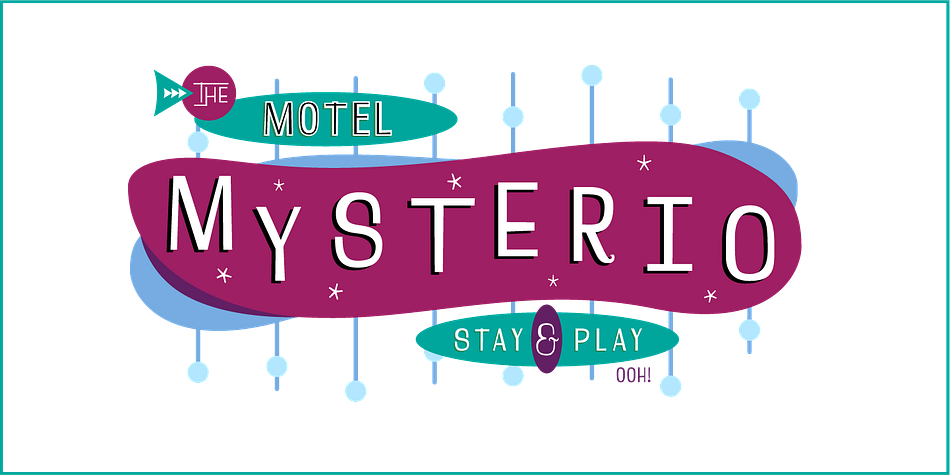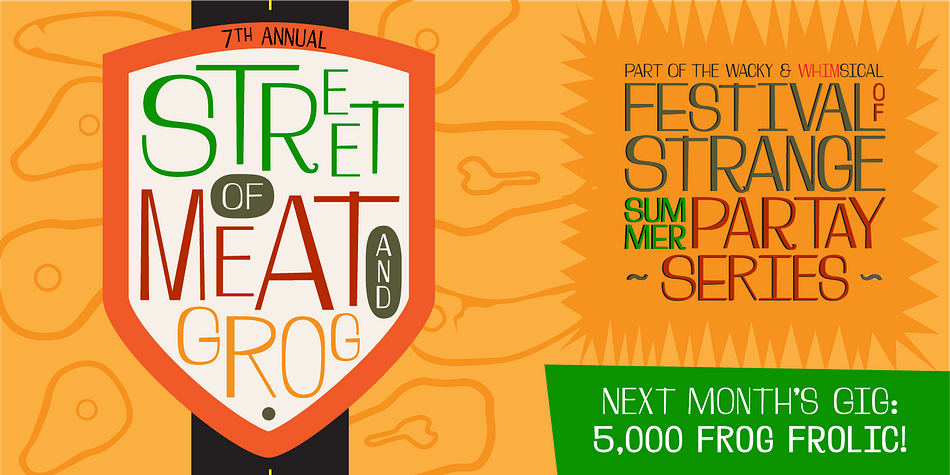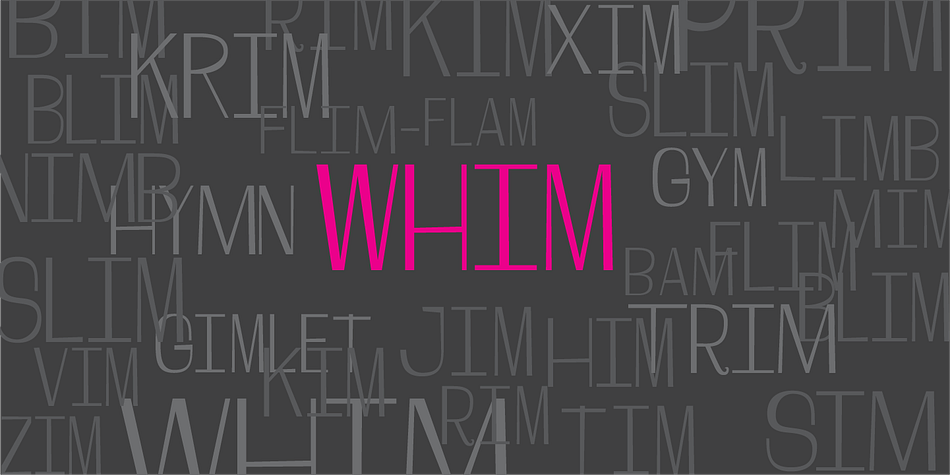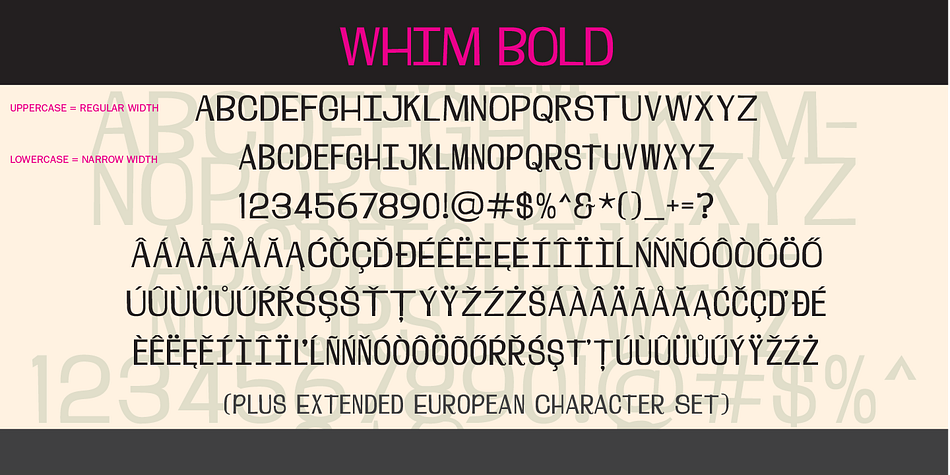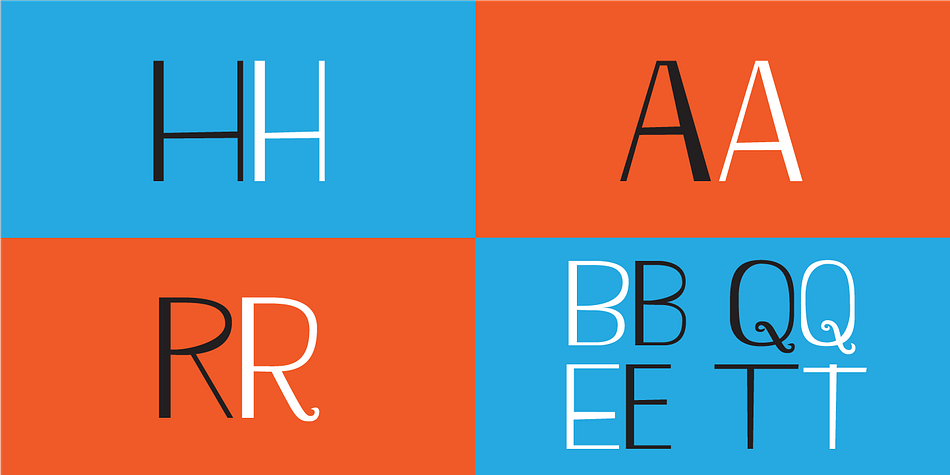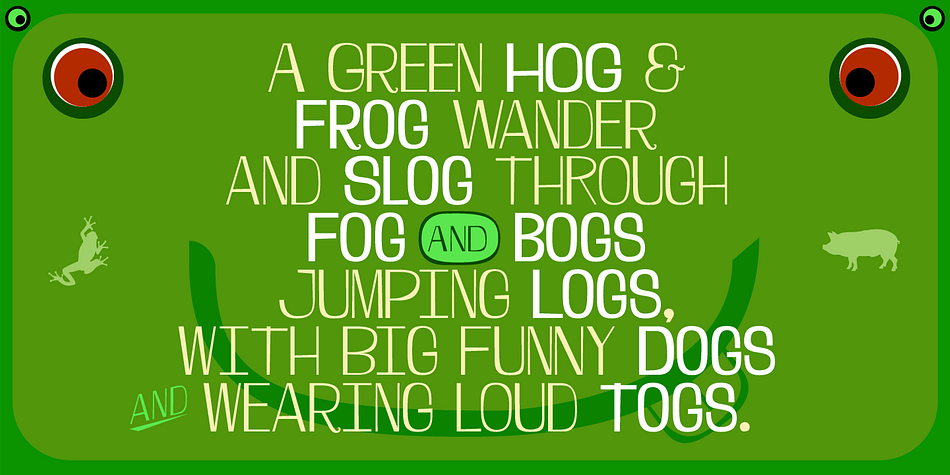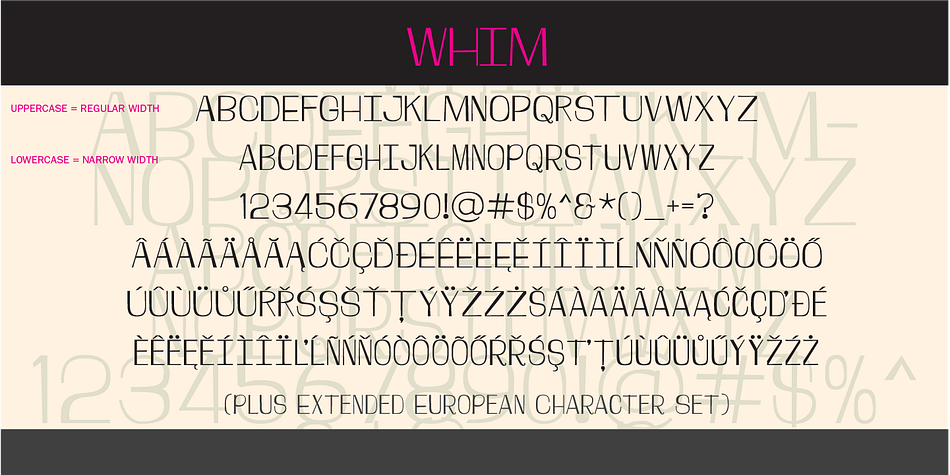
Whim is a hand display font family. This typeface has two styles and was published by Typekirk.
If you’re one to skim the books and hymns, you’ll find it grim when you try to swim with sharks and monks from limb to limb. Delightfully uneven, Whim is decidedly not prim, fully worked out, just not at a gym.
For loose and whimsical use, Whim’s upper- and lower-case positions feature two sets of fully interchangeable characters, with the the lower-case set being a narrow width containing slight variations and a few more overt. They mingle and mix like homonyms, do these two widths of Whim.
The font features an extended European character set.